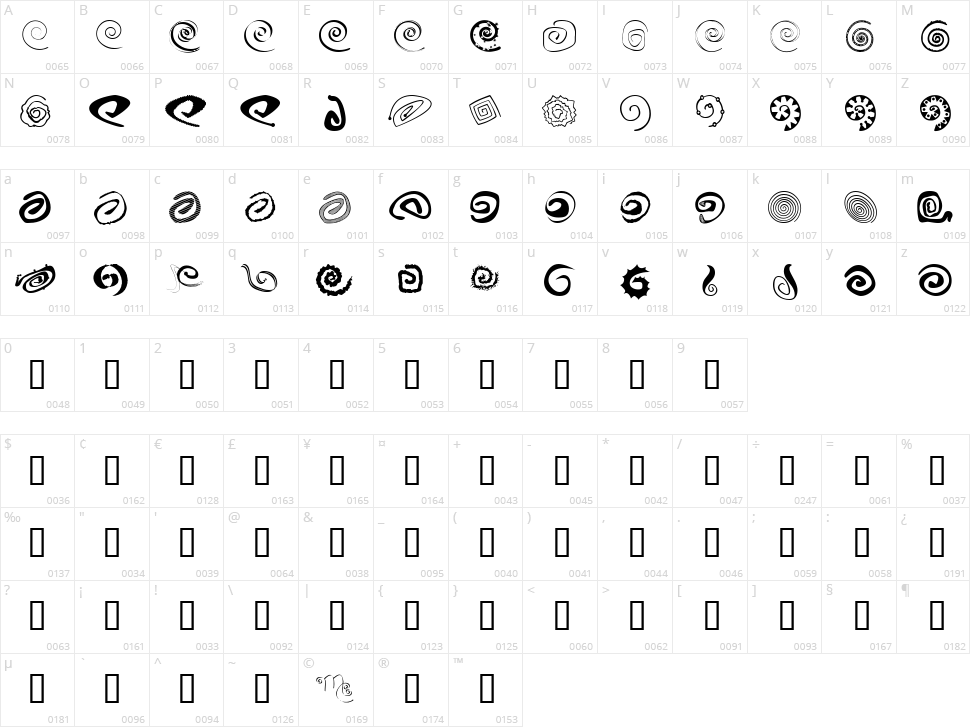
XSpiralmental
X-SPIRALMENTAL is my learner font, 52 different spirals. What can I say, I like spirals, they make great decorative elements. These are original spirals, no clip-art here.
Designer Name: Artsy Fartsy McFontsy